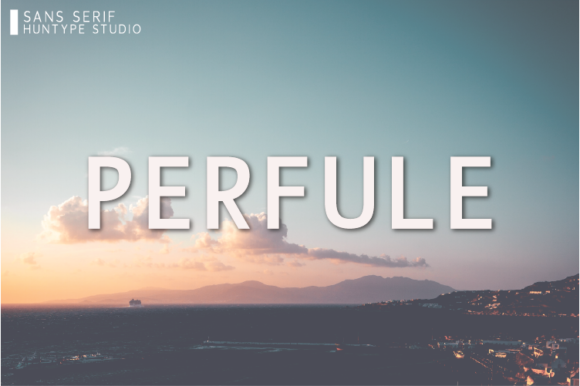
Step into the world of Perfule Font, a typographic masterpiece crafted by Huntype, where elegance meets simplicity. This sans serif font exudes a modernistic charm, rendering it an ideal choice for crafting logos that demand attention. Perfule's clean and crisp lines lend a touch of sophistication, ensuring your brand's visual identity shines brightly amidst the digital clamor.
Unleash your creativity and let Perfule's versatility take center stage. Whether you're designing websites, social media graphics, or even print materials, this font seamlessly adapts to your vision, adding a dash of understated charm to every project. Perfule's ability to effortlessly complement a wide array of aesthetics makes it a must-have in every designer's toolkit.
In a world saturated with visual noise, clarity is a virtue. Perfule epitomizes this virtue, allowing your words to speak volumes without being drowned out. Its legible letterforms, coupled with balanced spacing, ensure effortless readability, guaranteeing that your message reaches your audience with crystal clarity. With Perfule, communication becomes an art form, leaving a lasting impression that lingers long after the page is turned or the screen fades.
Behind every great design is a story waiting to be told. Perfule Font becomes your storytelling companion, aiding you in weaving narratives that captivate and inspire. Its minimalist design allows your words to take precedence, becoming vessels that carry your brand's ethos, values, and aspirations. Let Perfule amplify your voice and turn your designs into compelling tales that resonate with your audience, leaving them eager for more.